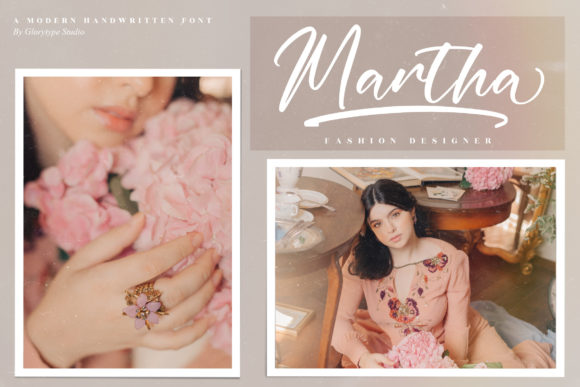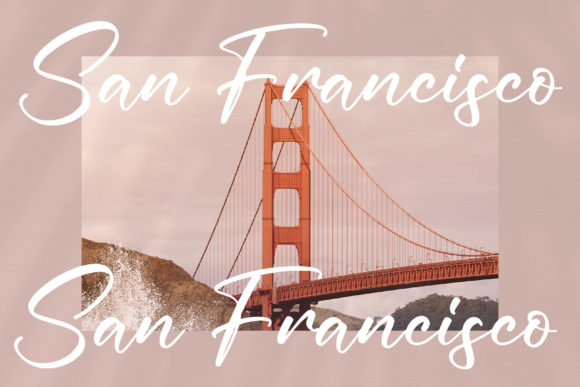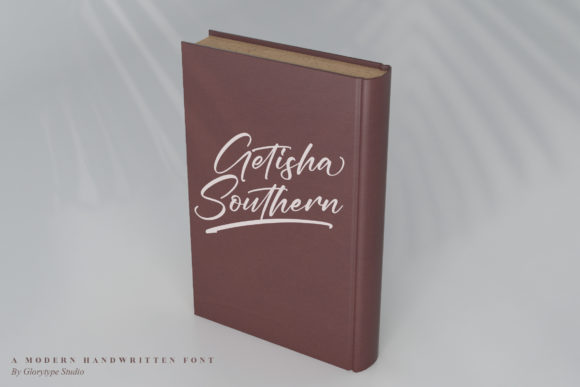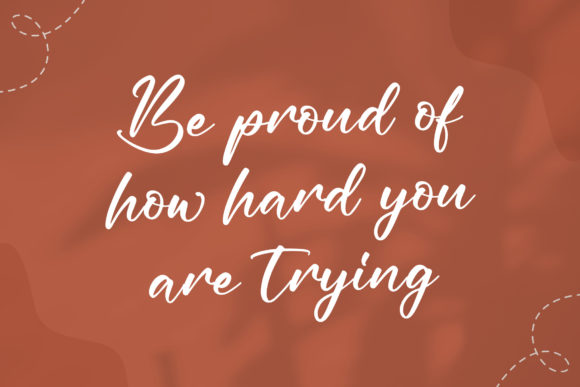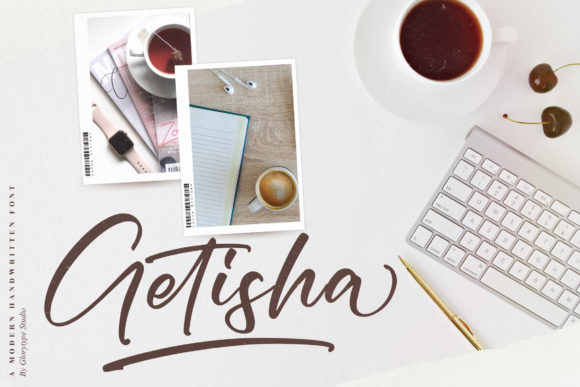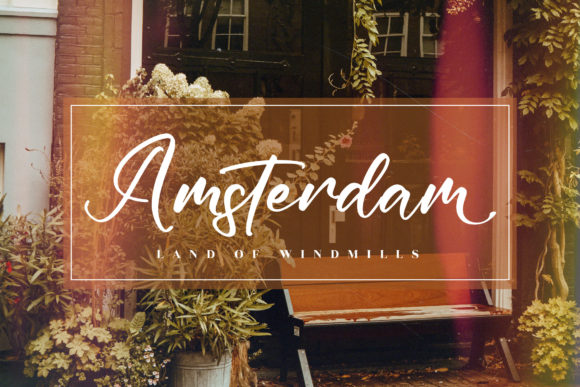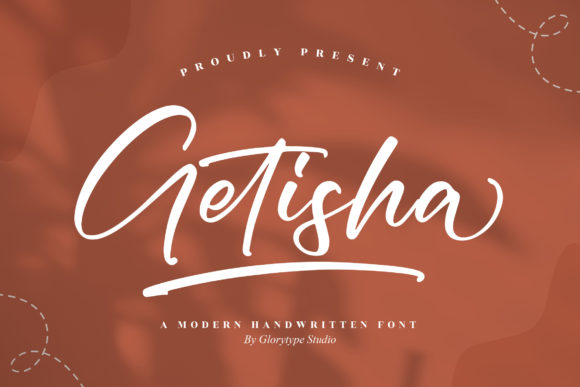
Introducing Getisha Font: Elevate Your Designs with Style and Versatility
In the world of typography, a font can make or break a design. It’s the perfect blend of style, adaptability, and functionality that can elevate a project from ordinary to extraordinary. If you’re a designer, crafter, or simply someone who appreciates beautiful typography, you’re in for a treat. Say hello to Getisha Font, a stylish and adaptable script font that’s about to become your new favorite.
What Makes Getisha Font Special?
Getisha Font stands out from the crowd with its unique blend of elegance and playfulness. This script font is designed to add a touch of sophistication to any project, whether it’s a branding campaign, a wedding invitation, or a DIY craft. Its stylish and adaptable nature makes it perfect for a wide range of applications, from digital designs to print materials.
PUA Encoding: Unlock Endless Creative Possibilities
One of the most significant advantages of Getisha Font is its PUA (Private Use Area) encoding. This means that you can access all the glyphs and swashes with ease, giving you unparalleled creative control. With PUA encoding, you can:
- Access a wide range of glyphs and swashes to add personality to your text
- Mix and match different characters to create unique combinations
- Experiment with various typography styles to find the perfect fit for your project
Endless Design Possibilities with Getisha Font
Getisha Font is more than just a font – it’s a design tool that can help you bring your creative vision to life. Its versatility and adaptability make it perfect for:
- Branding and advertising: Create eye-catching logos, taglines, and marketing materials that stand out
- Wedding and event planning: Design beautiful invitations, programs, and decor that reflect your personal style
- Crafting and DIY projects: Add a touch of elegance to your handmade crafts, such as cards, scrapbook pages, and journal entries
- Digital designs: Use Getisha Font to create stunning social media graphics, blog headers, and website content
Why Choose Getisha Font?
With so many fonts available, why choose Getisha Font? Here are just a few reasons:
- Unique and stylish design that will make your projects stand out
- PUA encoding for effortless access to glyphs and swashes
- Adaptable and versatile, perfect for a wide range of applications
- Easy to use and integrate into your design workflow
Get Ready to Fall in Love with Getisha Font
If you’re looking for a font that will elevate your designs and add a touch of style and sophistication, look no further than Getisha Font. Its unique blend of elegance and playfulness, combined with its PUA encoding and adaptability, make it the perfect choice for designers, crafters, and anyone who appreciates beautiful typography.